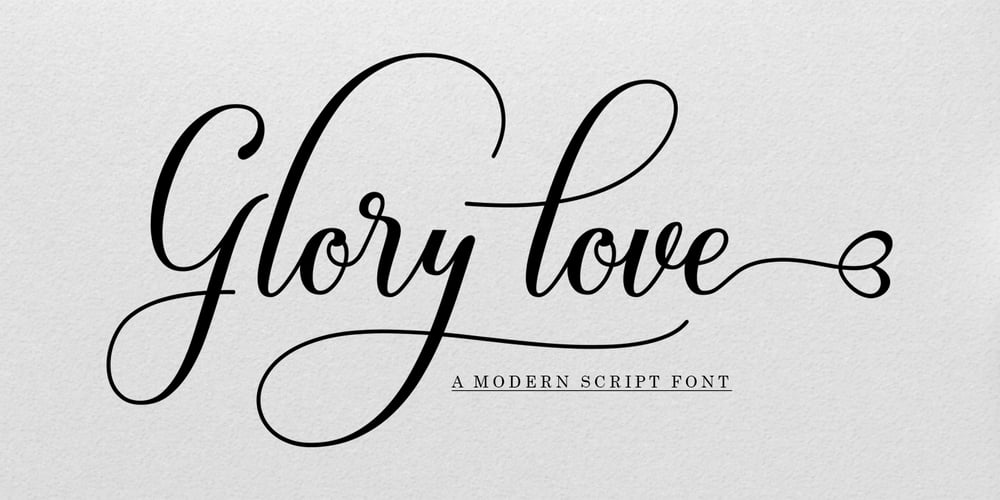
Glory love
Glory love font
Glory love Font Family was designed by Reza Haitami and published by Black Studio. Glory love contains 1 styles and family package options. Glory love is a new modern script font with an irregular baseline. Feminine style and style. Glory love looks beautiful in wedding invitations, thank you cards, quotes, greeting cards, logos, business cards and many more. Perfect for use in ink or watercolor. Includes start and end letters, alternatives and support for many languages.To activate the OpenType Stylistic alternative, you need a program that supports OpenType features such as Adobe Illustrator CS, Adobe Indesign & CorelDraw X6-X7, Microsoft Word 2010 or a later version. There is an additional way to access alternatives / swashes, using the Character Map (Windows), Nexus Fonts (Windows), Font Books (Mac) or a software program such as PopChar (for Windows and Mac).How to access all alternate characters:https: //www.youtube.com/watch? v = Go9vacoYmBwhttps: //www.youtube.com/watch? v = XzwjMkbB-wQhttps: //www.yo … need help or have questions, let me know. I’m happy to help 🙂 Thanks & Congratulations on Design!